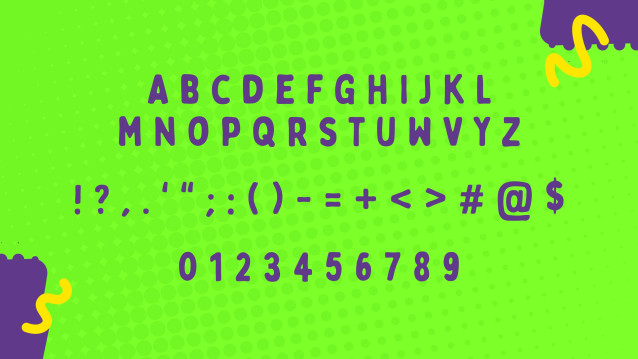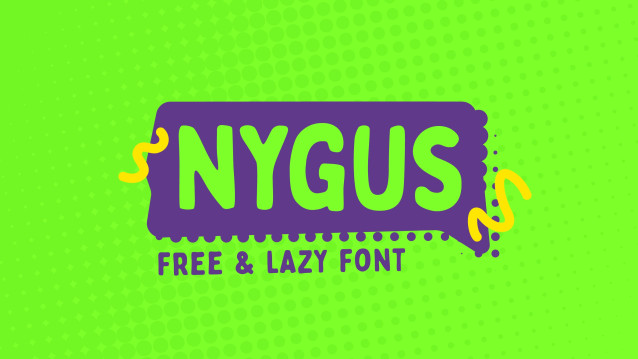
Nygus Font is a simple and modern display font suitable for quotes, logos, headings, titles, and many more. Use it on any of your creative projects, and your designs will become outstanding!
Nygus Font
| Designer Name: | Szymon Furjan |
| Classification: | Display Fonts, Modern Fonts |